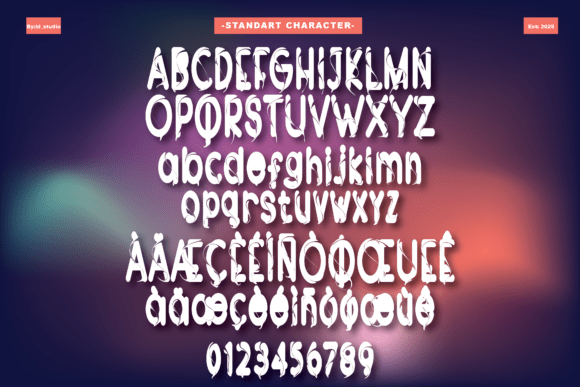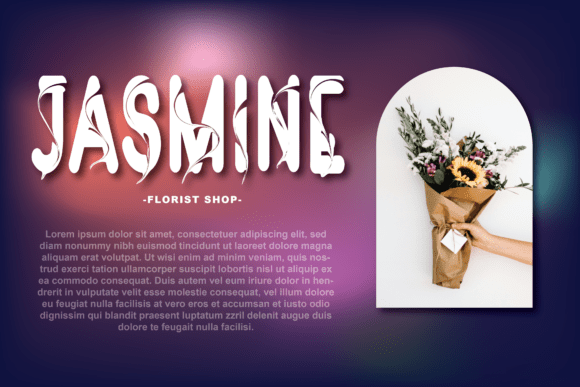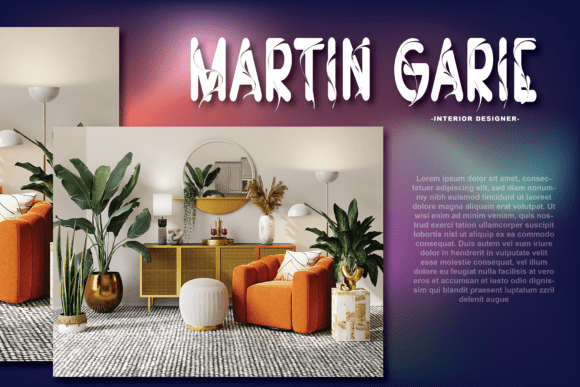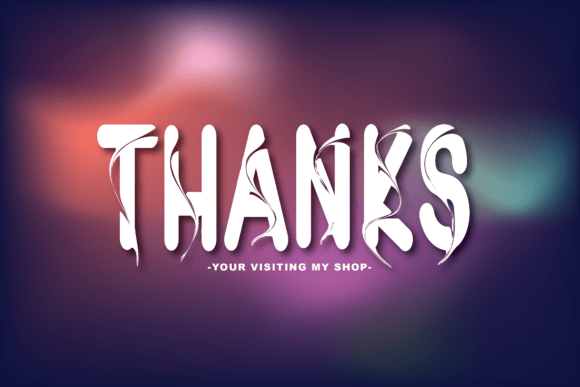
Introduction to Scribbles Font
Immerse yourself in the modern sophistication of , an elegantly crafted handwritten font.
Its tasteful design captivates and mesmerises, transforming regular creations into works of art Itโs not just a font, itโs an exquisite statement; breathing style and charm into wedding invitations, thank-you cards and more.
Key Features of Scribbles Font